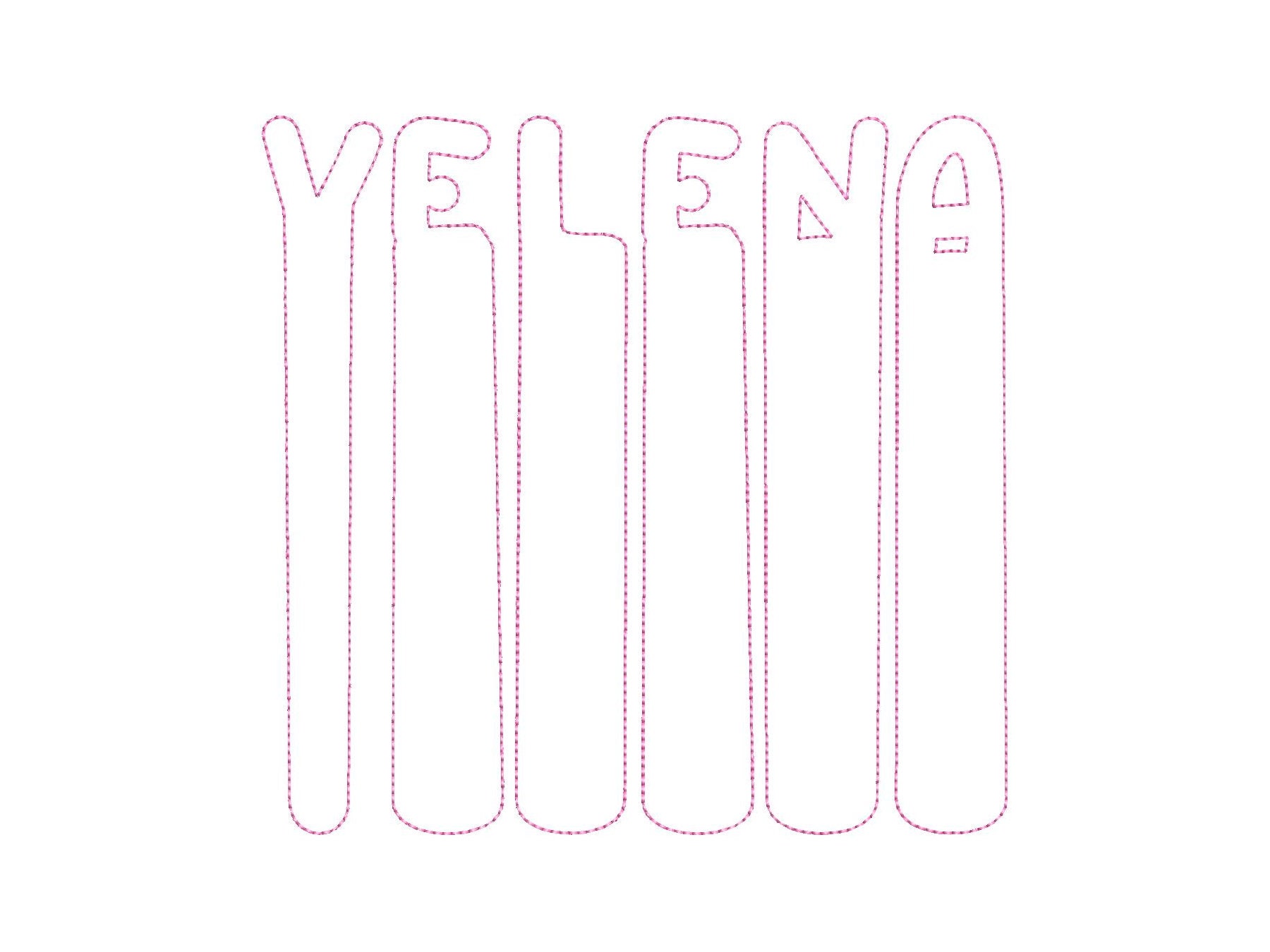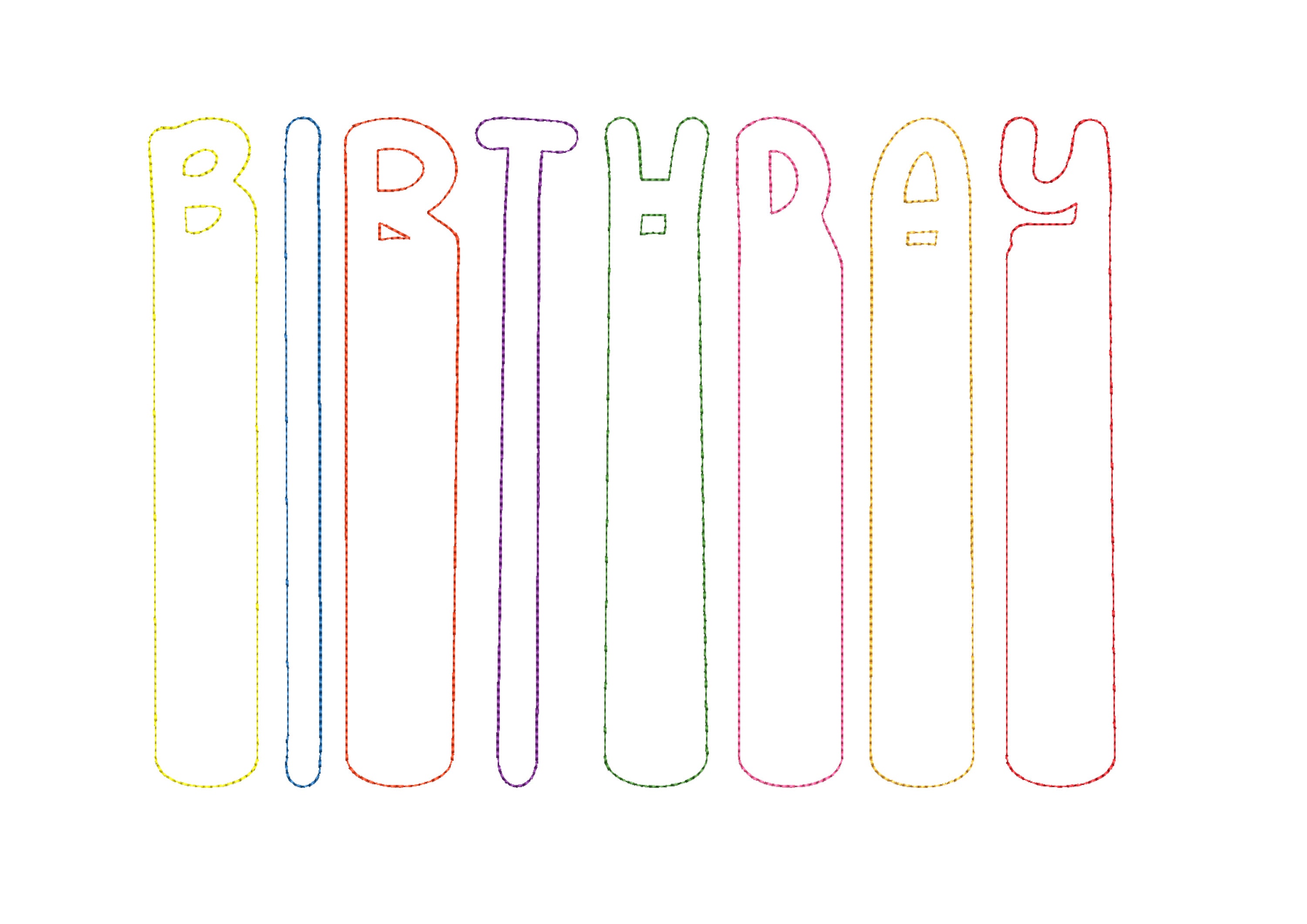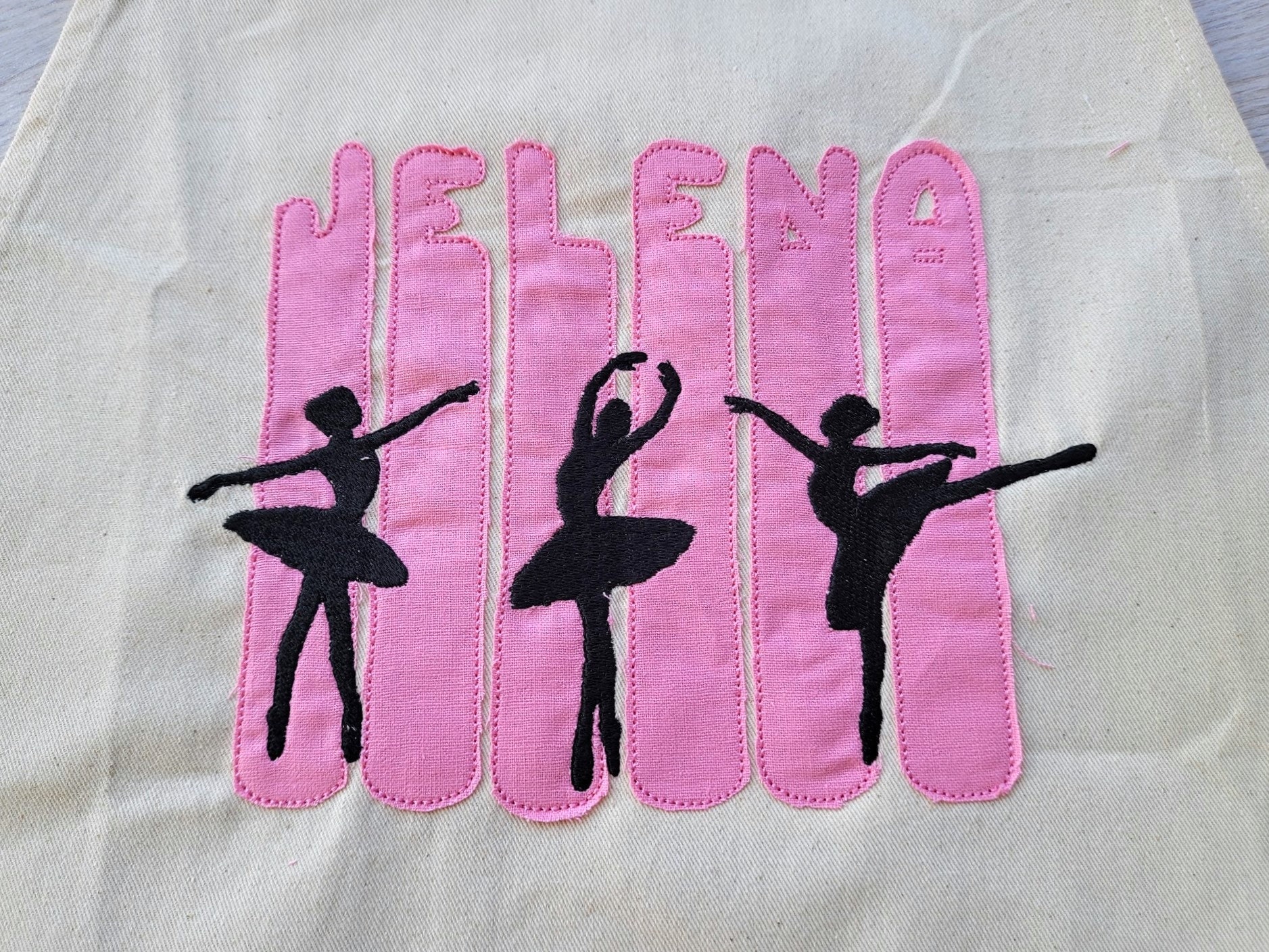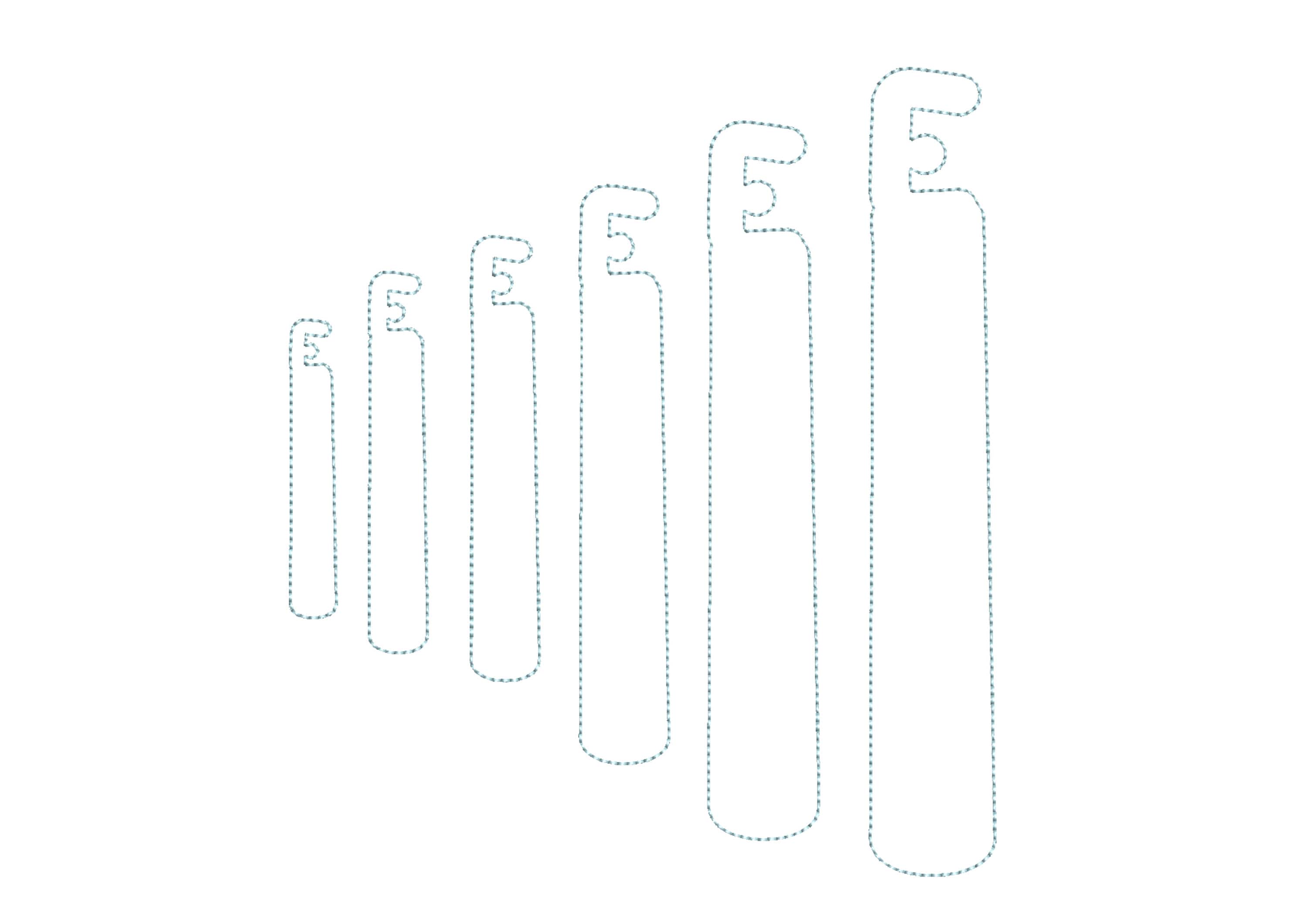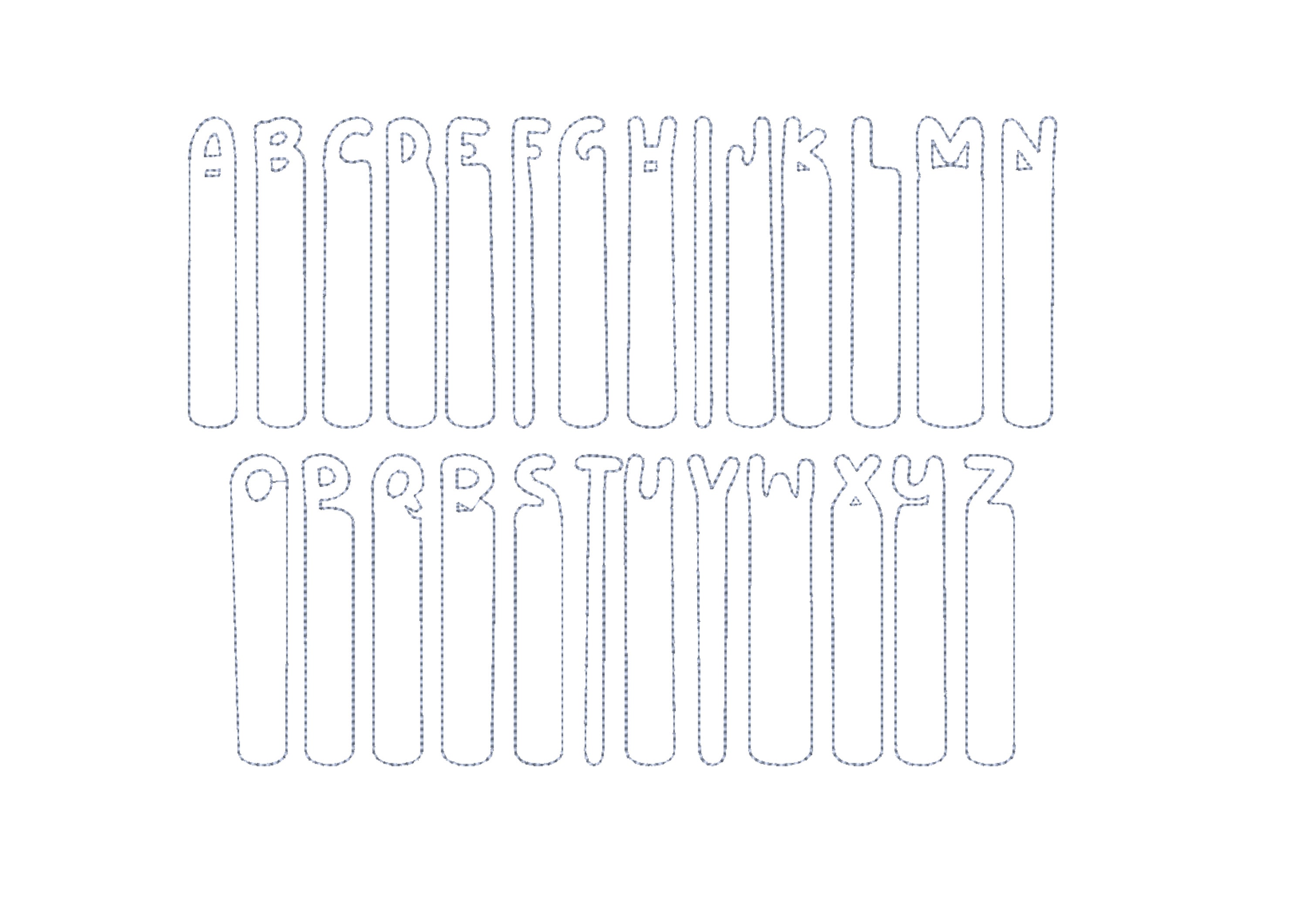
Brush Strokes Painter Font Applique, raggedy edge applique alphabet letters machine embroidery designs in many sizes, kids name monogram BX included
This is raggedy edge Applique font.
The whole alphabet A-Z uppercase and ampersand &